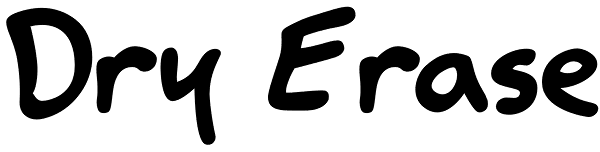
Dry Erase
This font is my first attempt at typeface design. It is based on my own handwriting and I tried to maintain the natural quality, where the letters are quite loose, some going in different directions, thickness and position. It has Open Type features...